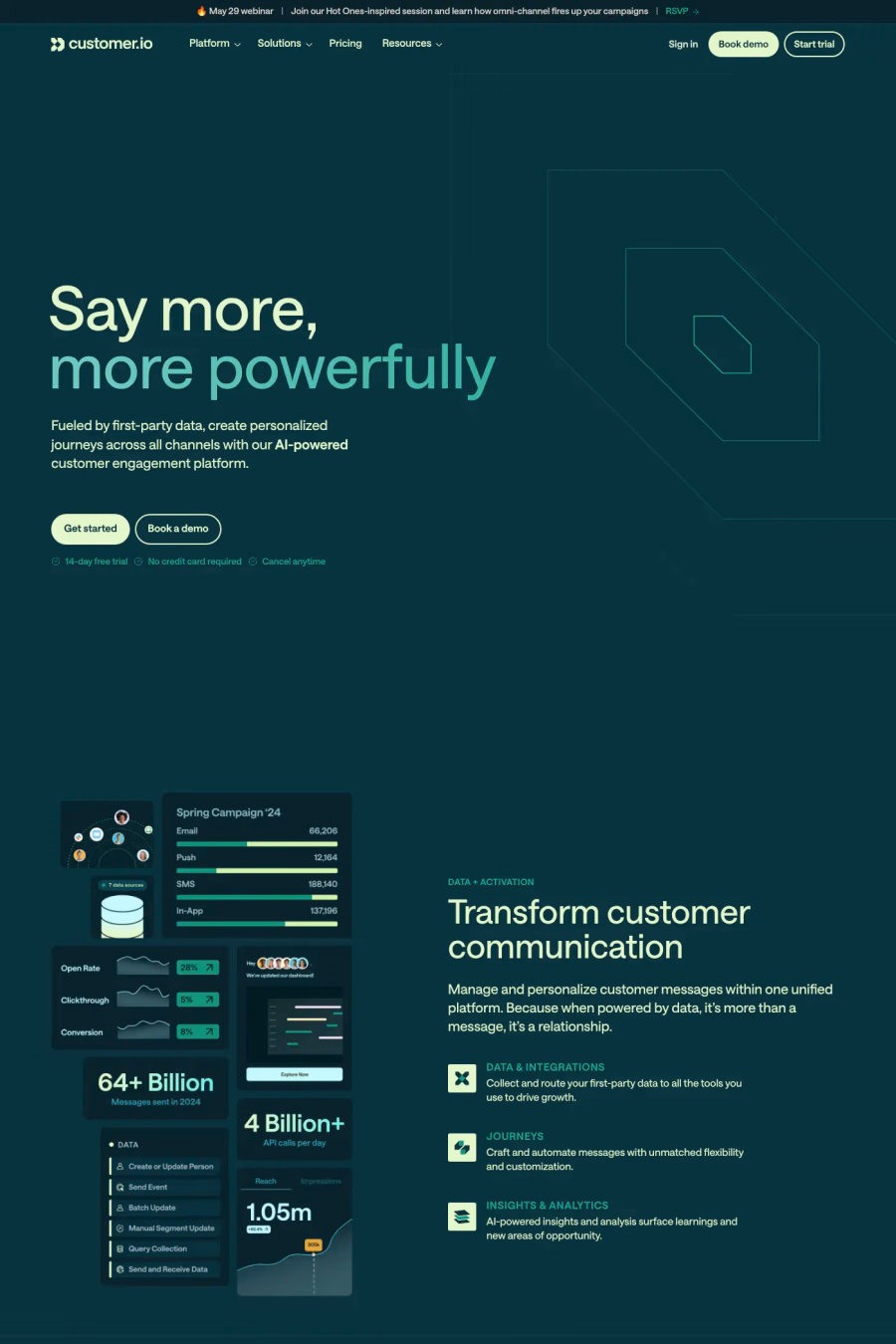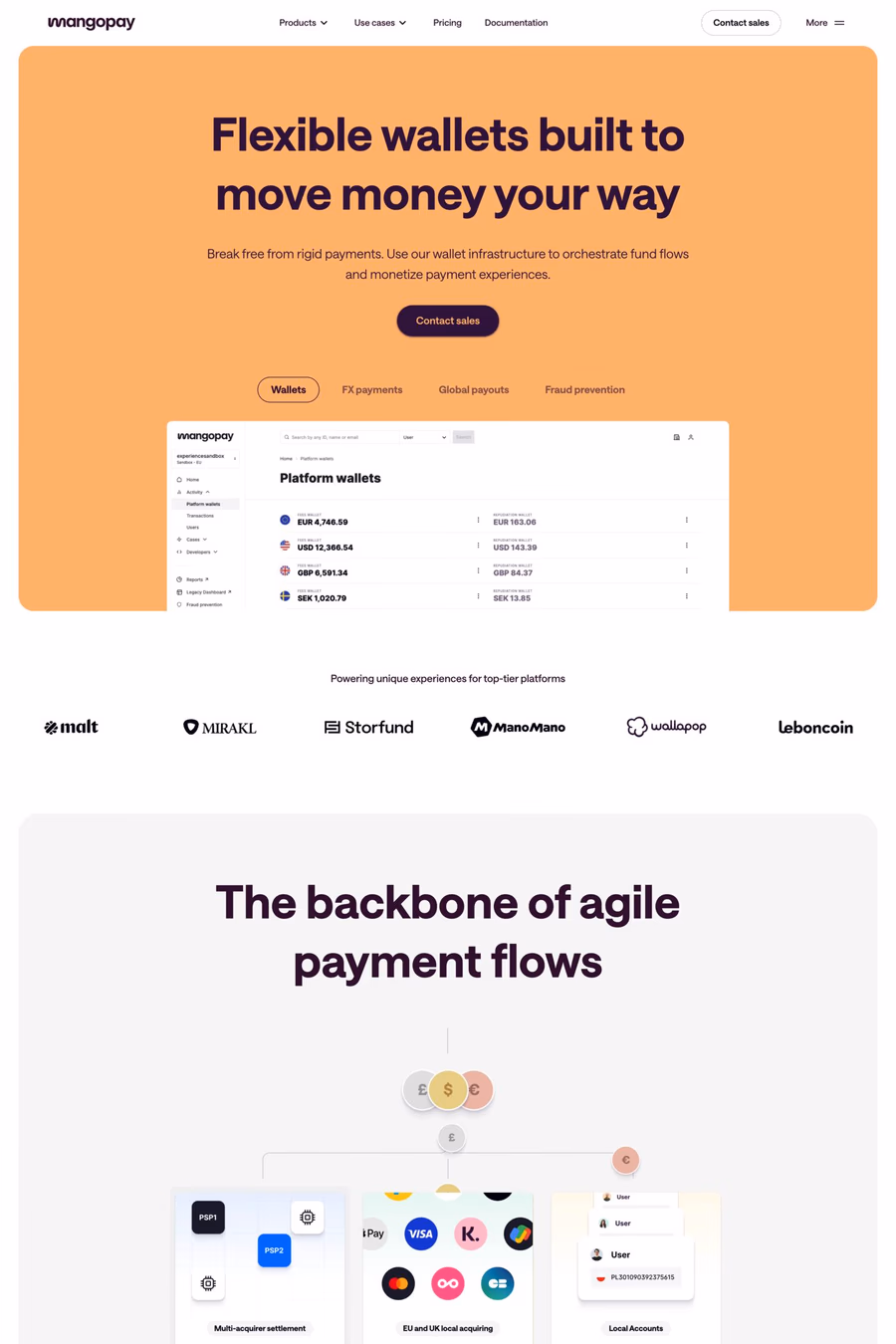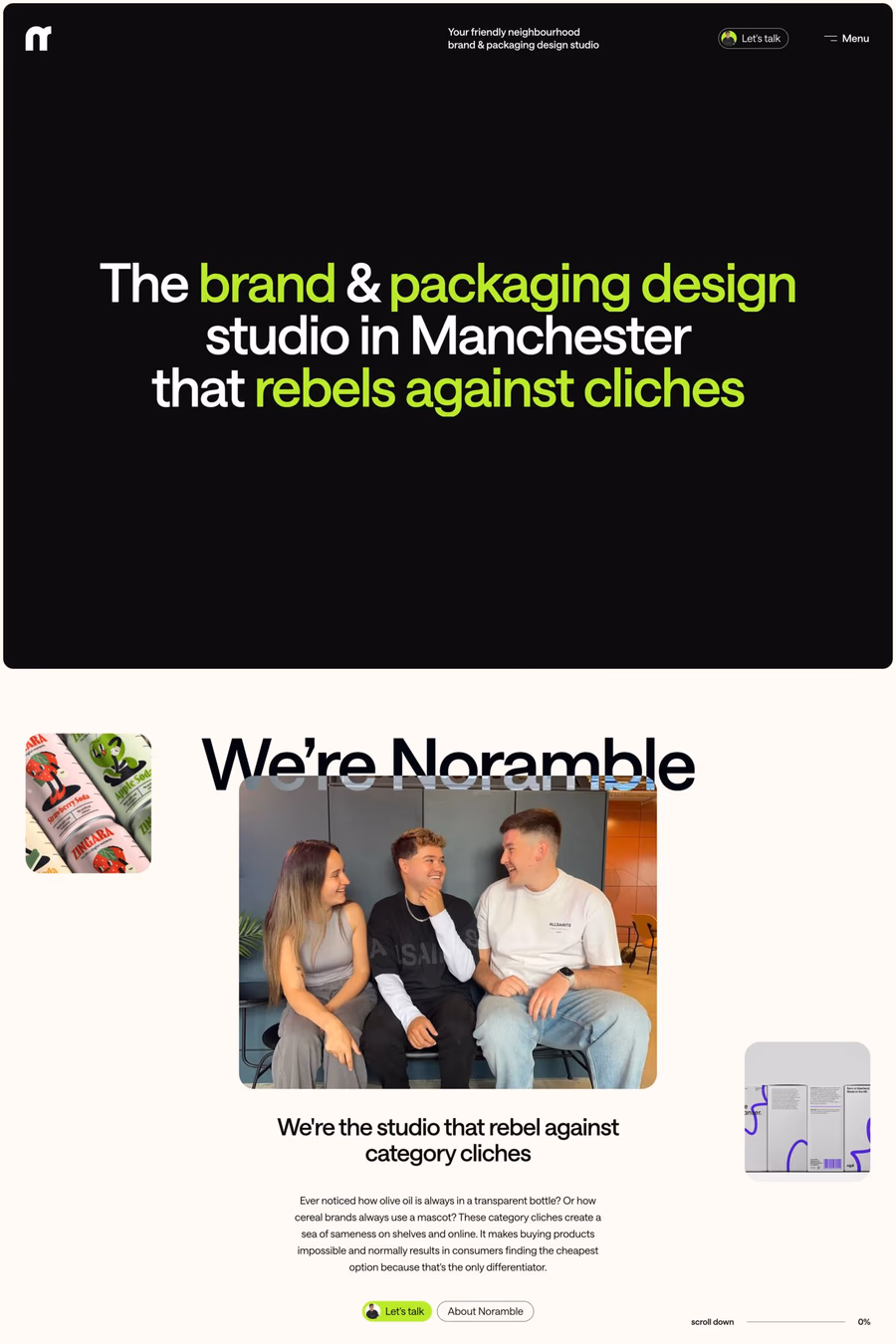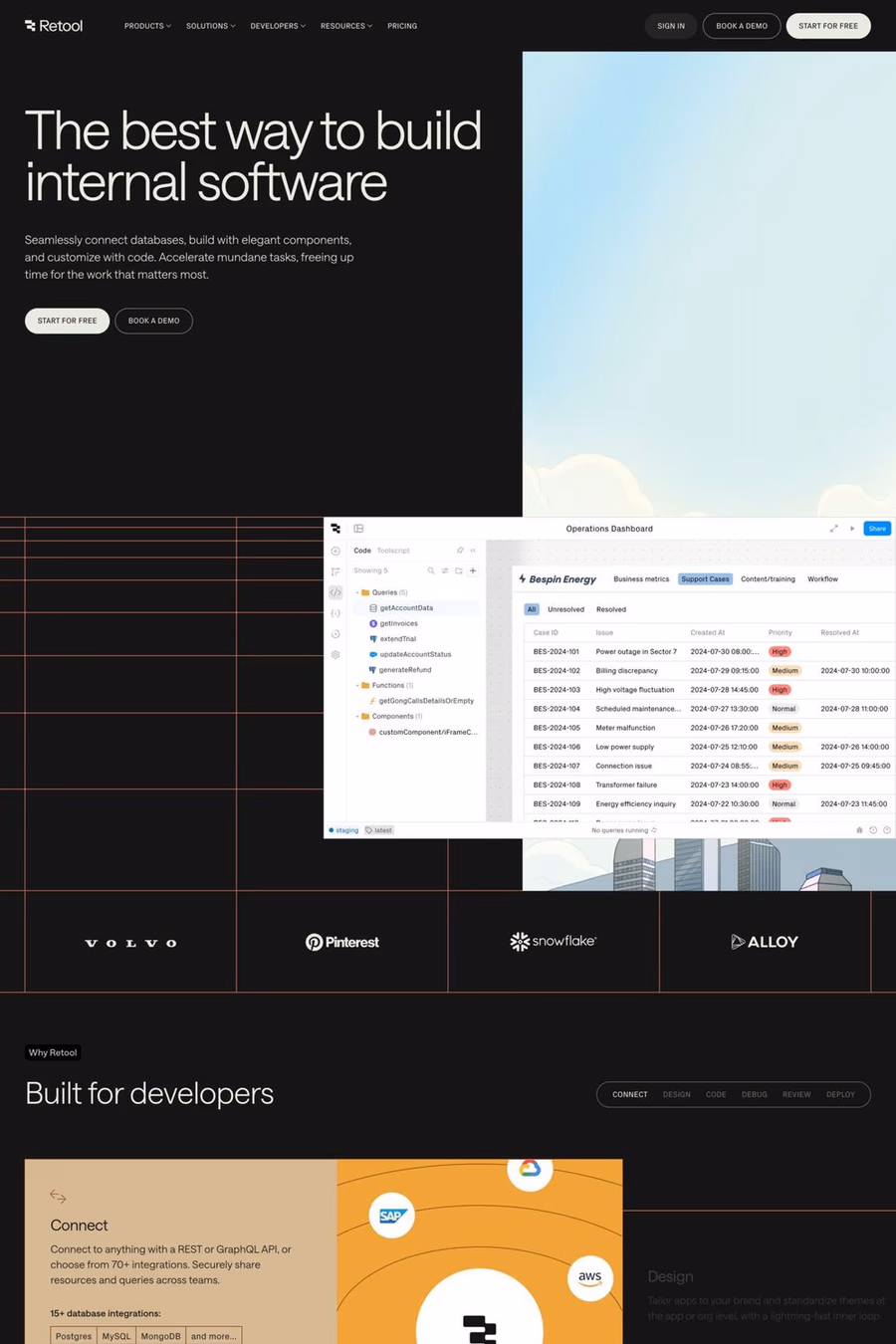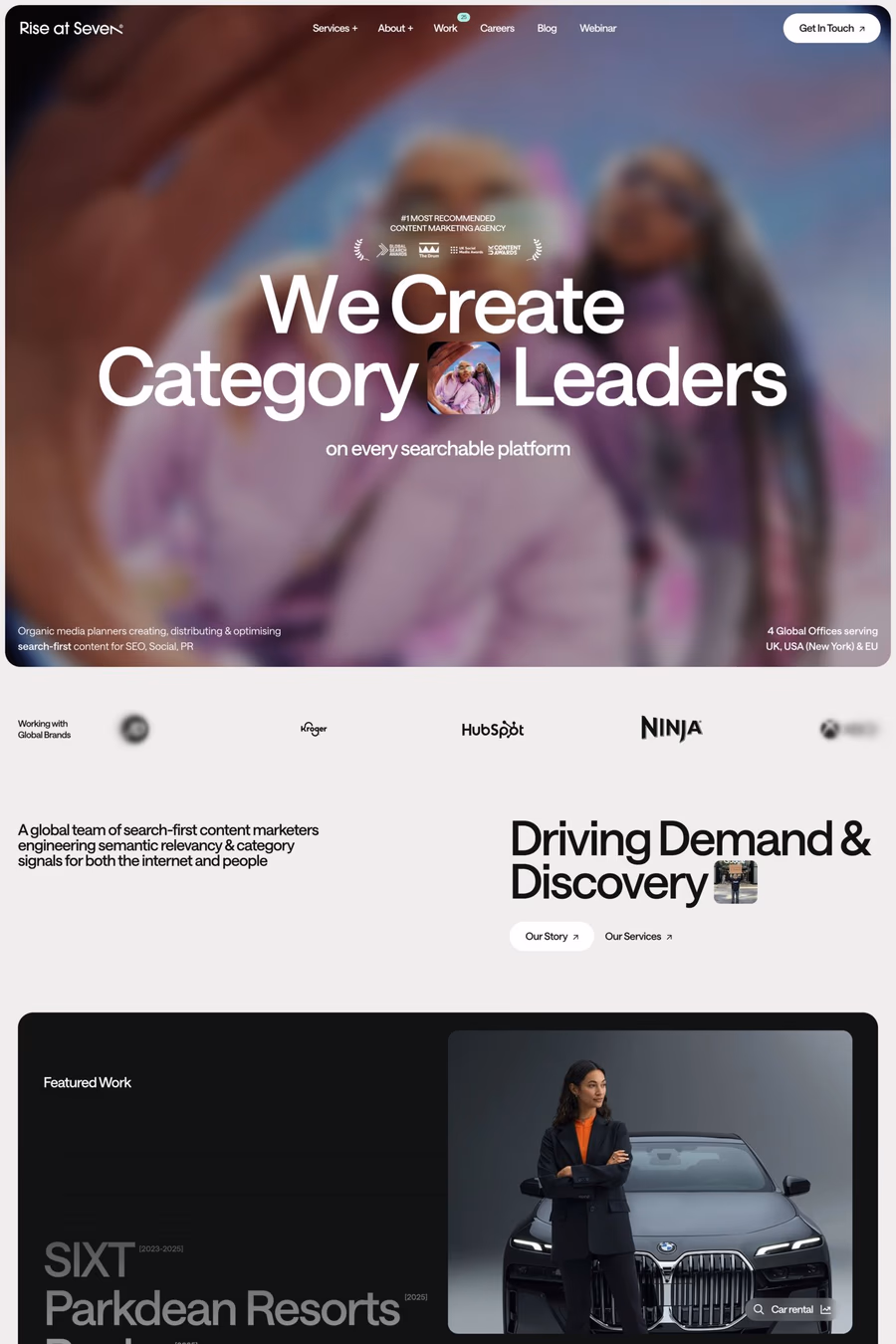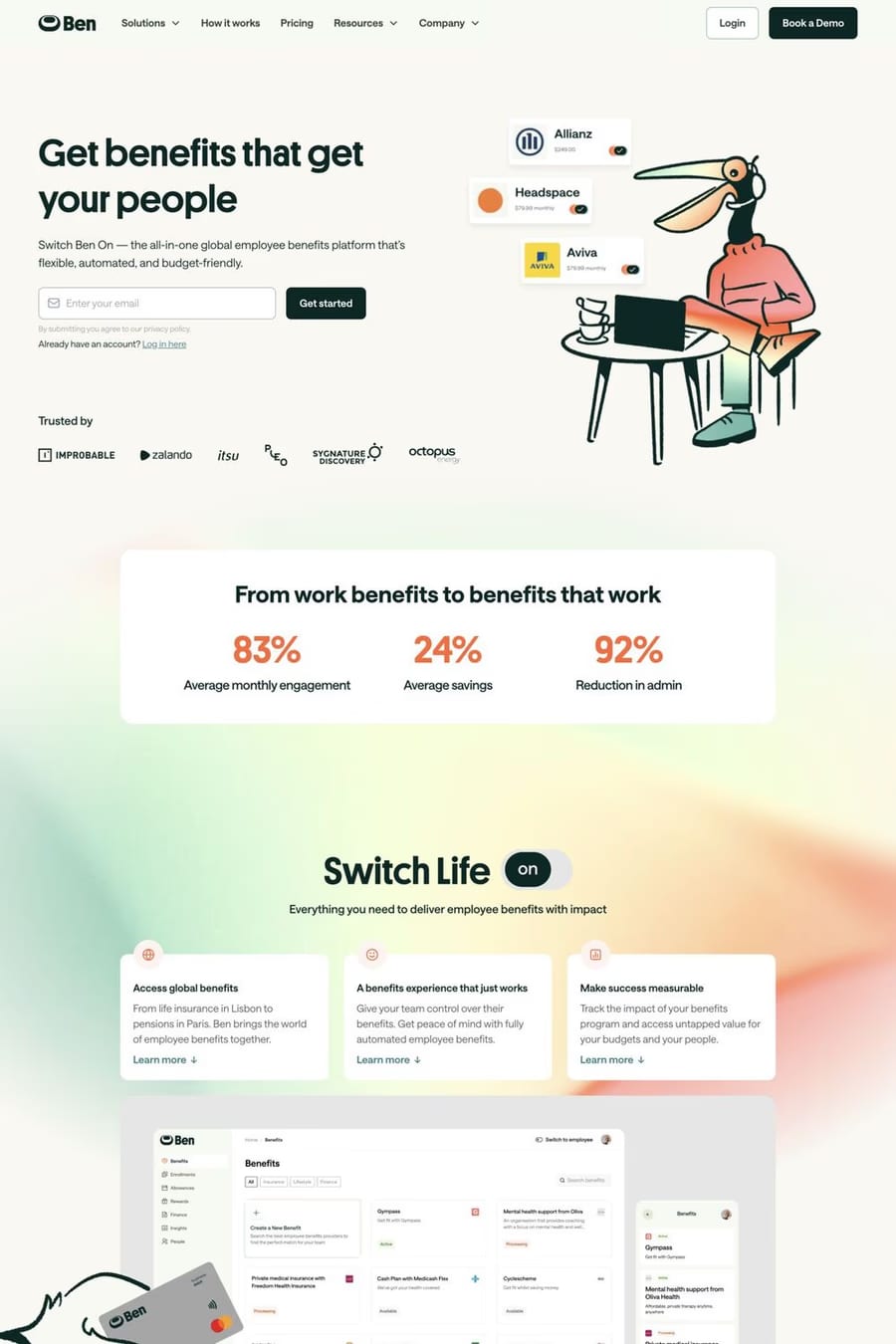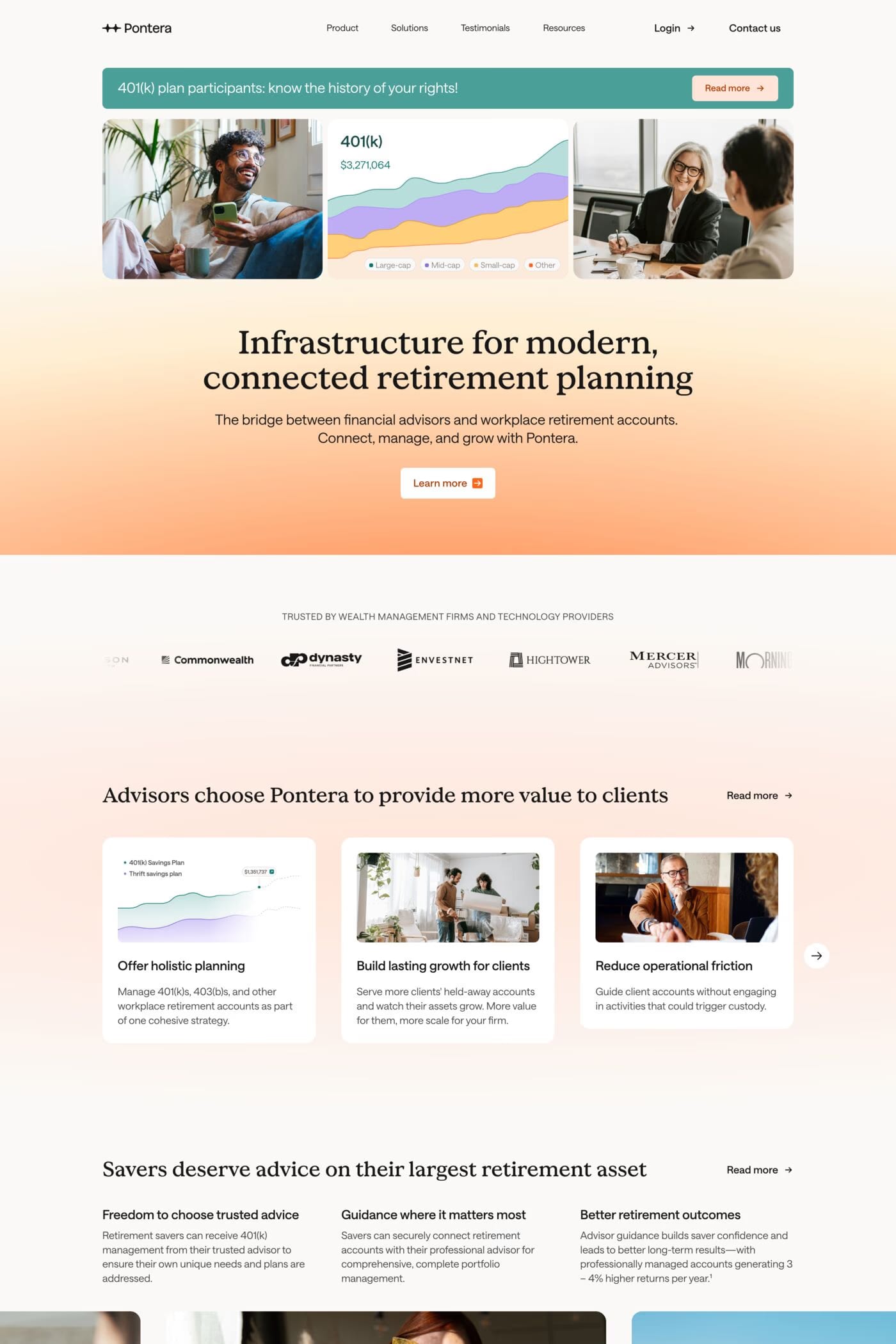
Saans is a sans-serif typeface from Displaay Type Foundry.
Our foundry developed the Saans typeface to meet our internal needs, with the goal of creating a neutral design that would complement, rather than compete with, our retail library. As enthusiasts of no-style aesthetic graphic design, we found that this typeface was a perfect fit for what we needed for our brand.